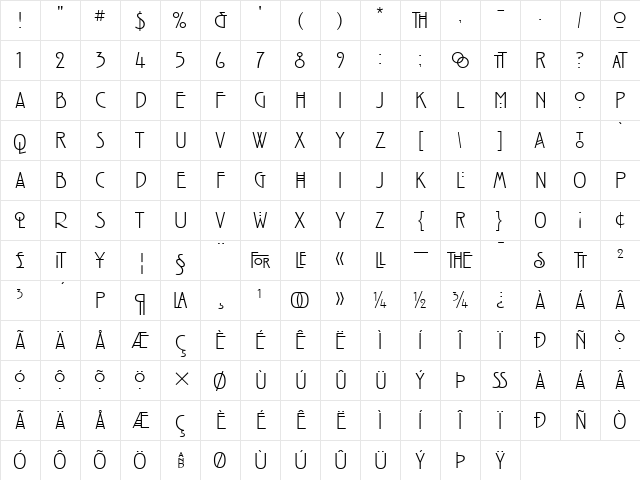
RennieMackintoshITC TT Light Free Font
RennieMackintoshITC TT Light
RennieMackintoshITC TT Family
Design Context for RennieMackintoshITC TT
RennieMackintoshITC TT is a composed and adaptable typeface that performs quietly and consistently across a wide range of design contexts. Its slender proportions lend an understated elegance to any composition.